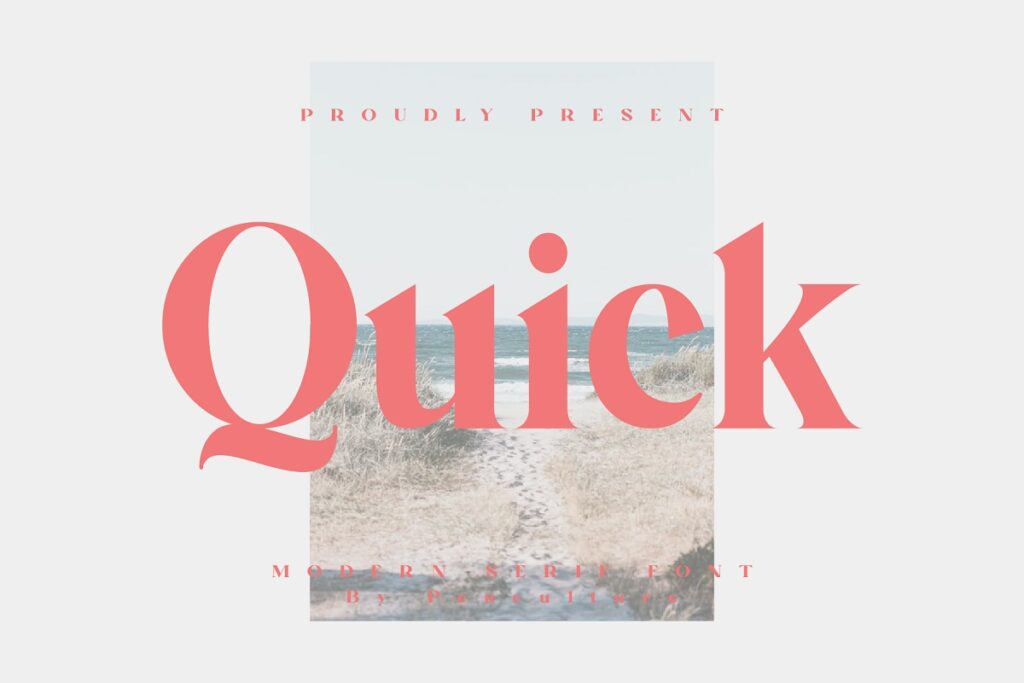
Quick Serif Font
Quick is a trendy, authentic and bold serif font. This font is imposing and features beautifully shaped letters, and as a result, it will easily match a wide range of creations that require a distinct touch.
Perfect for branding projects, Logo design, Clothing Branding, product packaging, magazine headers, or simply as a stylish text overlay to any background image.
Quick Bold Serif Font